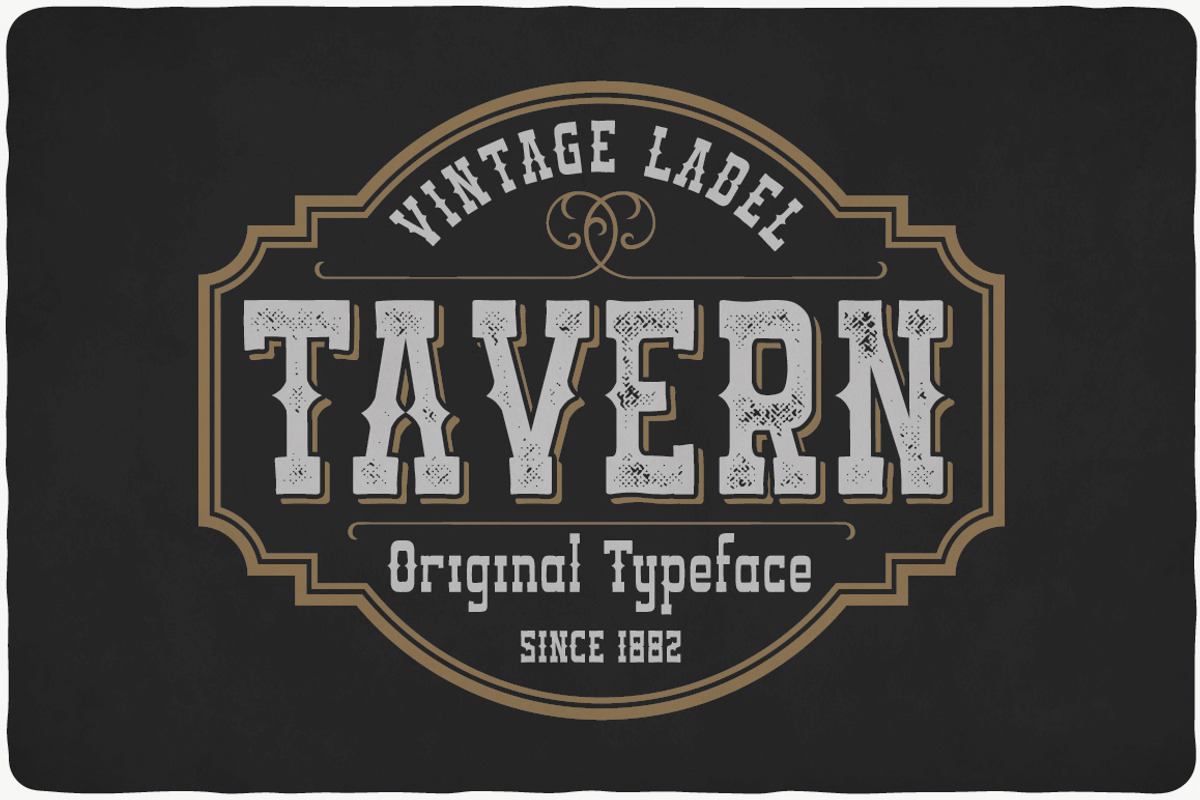
Tavern Typeface Free Download is a bold, vintage-inspired font that captures the rustic charm of old pubs, saloons, and hand-painted signage. With strong serifs and classic lettering, this typeface is perfect for beer labels, bar menus, logo designs, merchandise, and event posters that need an authentic, old-world feel.
Its textured, handcrafted look brings character and warmth to any design, making it ideal for projects that celebrate tradition, craftsmanship, and community vibes. Whether you're designing for a craft brewery, a tavern-themed brand, or a retro revival project, Tavern delivers style with substance.
Designers love Tavern for its readability and historical flair. Want to pour some vintage character into your work? Download Tavern Typeface Free Download and give your next design a taste of timeless tradition.